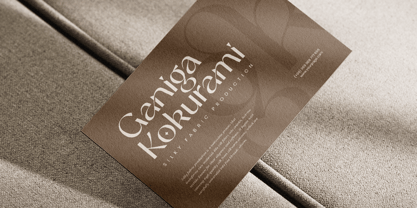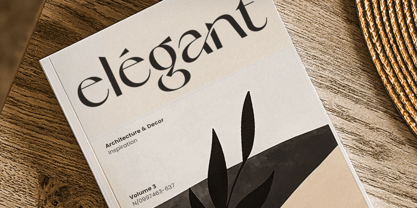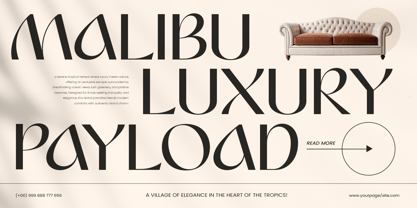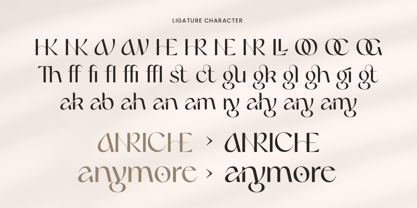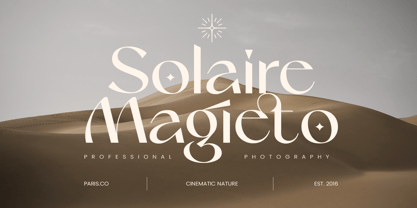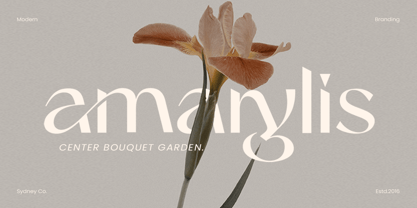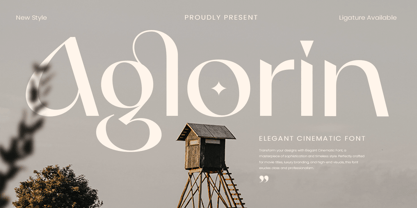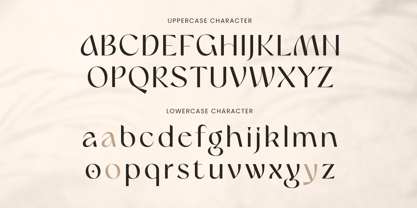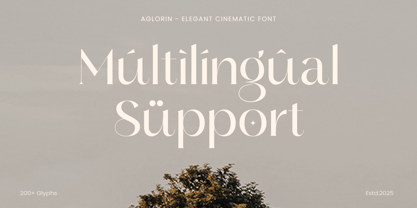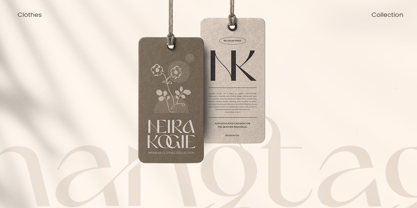
Aglorin - Elegant Cinematic Font
Aglorin is an elegant cinematic font designed to bring sophistication and drama to every composition. With refined letterforms and balanced contrast, Aglorin is ideal for movie titles, fashion editorials, upscale branding, and luxury packaging.
Inspired by the golden age of film typography and high-end print design, Aglorin blends timeless aesthetics with modern sharpness. Its stylish curves and graceful structure evoke a feeling of prestige and creativity across both print and digital platforms.
Choose Aglorin to elevate your visual identity with a cinematic presence that feels classic yet undeniably modern.
Aglorin – Elegant Cinematic Font Features
Timeless sans serif elegance with cinematic flair
Perfect for titles, branding, and luxury designs
Punctuation, numbers, and symbols included
Uppercase and lowercase letters
OpenType features for enhanced styling
Multilingual support for Afrikaans, Albanian, Asu, Basque, Bemba, Bena, Breton, Chiga, Cornish, Dutch, English, Estonian, Filipino, Finnish, Friulian, Galician, German, Gusii, Indonesian, Irish, Italian, Kabuverdianu, Kalenjin, Kinyarwanda, Luo, Luxembourgish, Luyia, Machame, Makhuwa-Meetto, Makonde, Malagasy, Manx, Morisyen, North Ndebele, Nyankole, Oromo, Portuguese, Quechua, Romansh, Rombo, Rundi, Rwa, Samburu, Sango, Sangu, Scottish Gaelic, Sena, Shambala, Shona, Soga, Somali, Spanish, Swahili, Swedish, Swiss, and more.
Command attention with Aglorin — your go-to font for cinematic elegance and luxurious design.